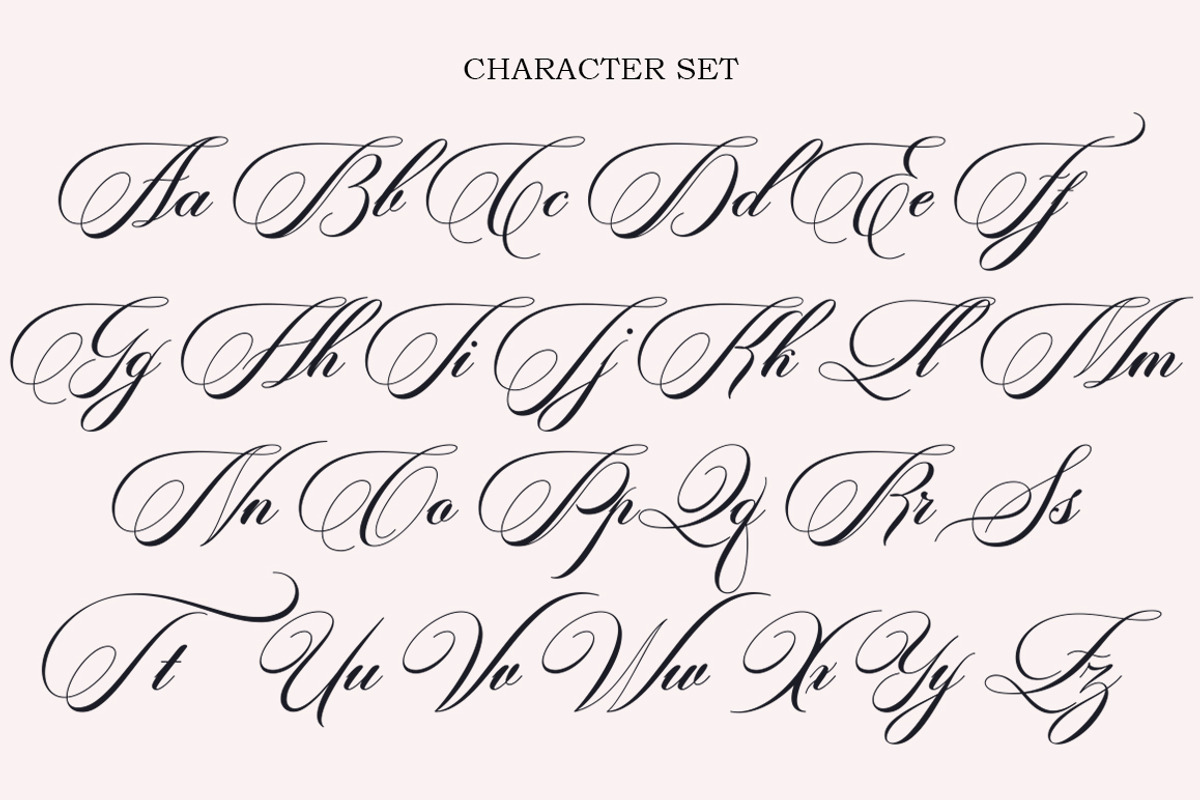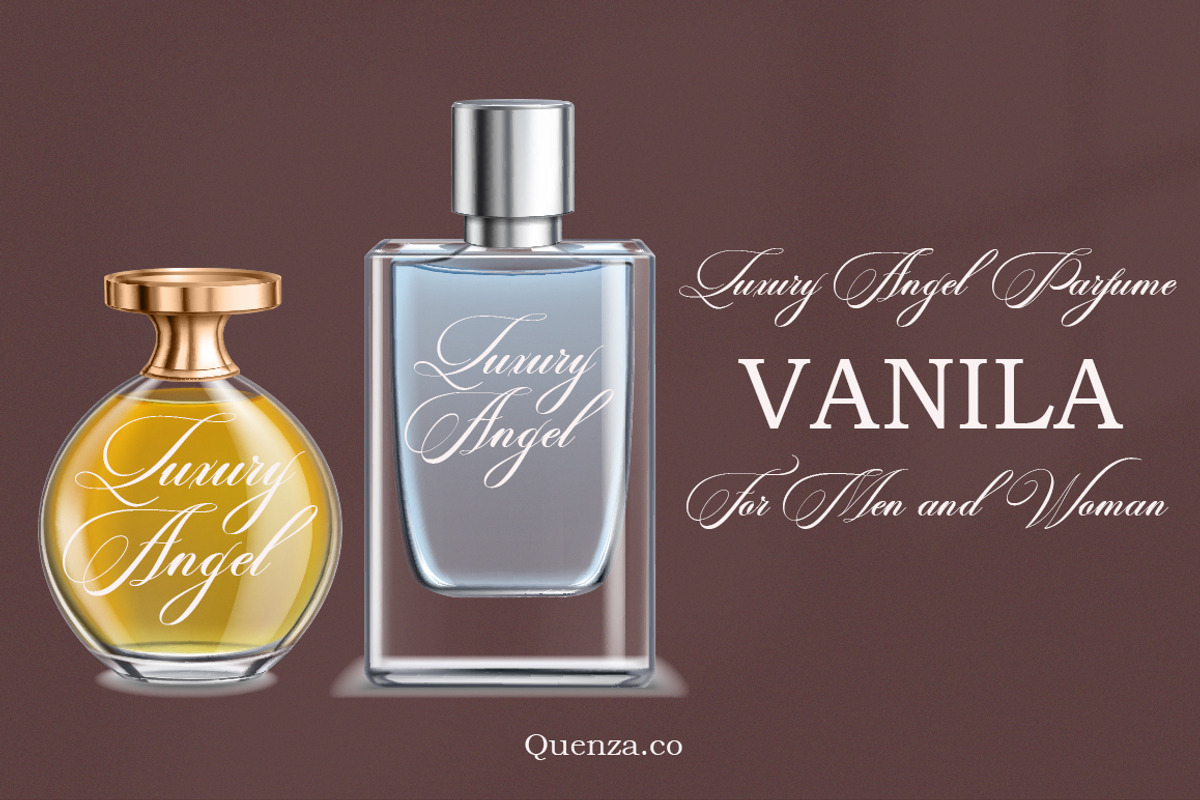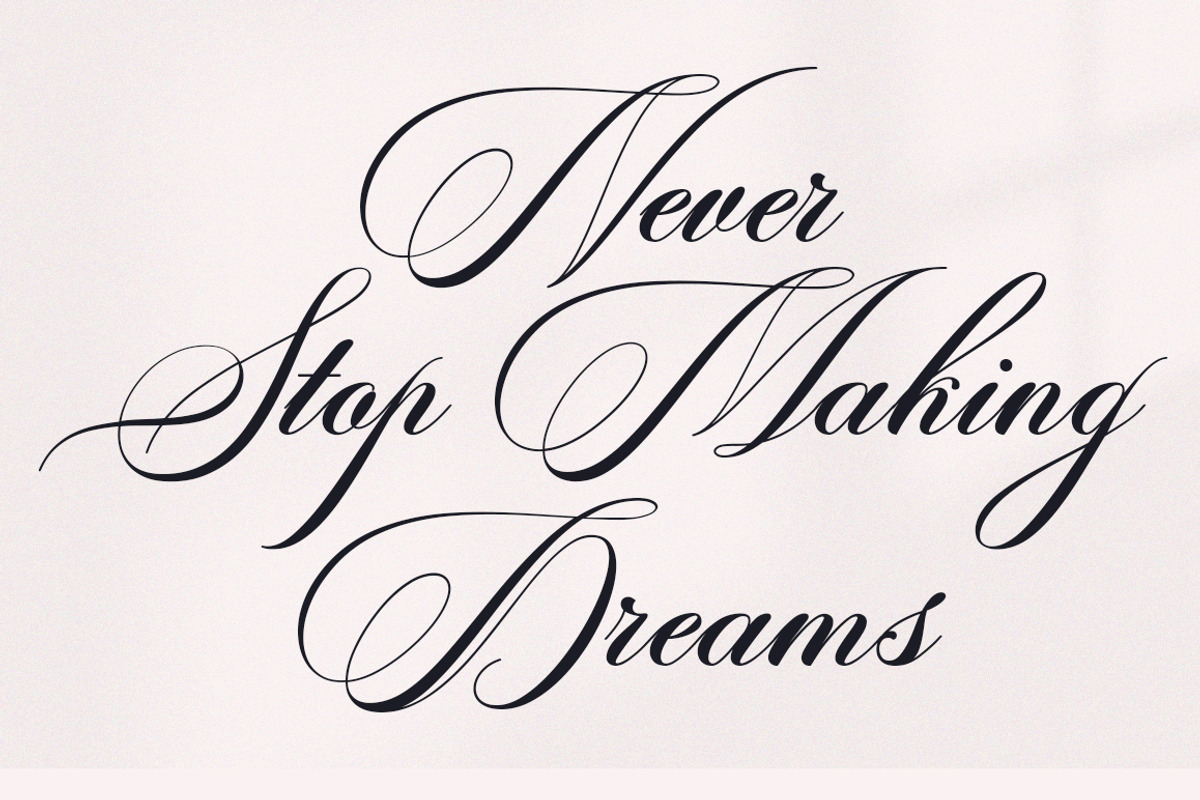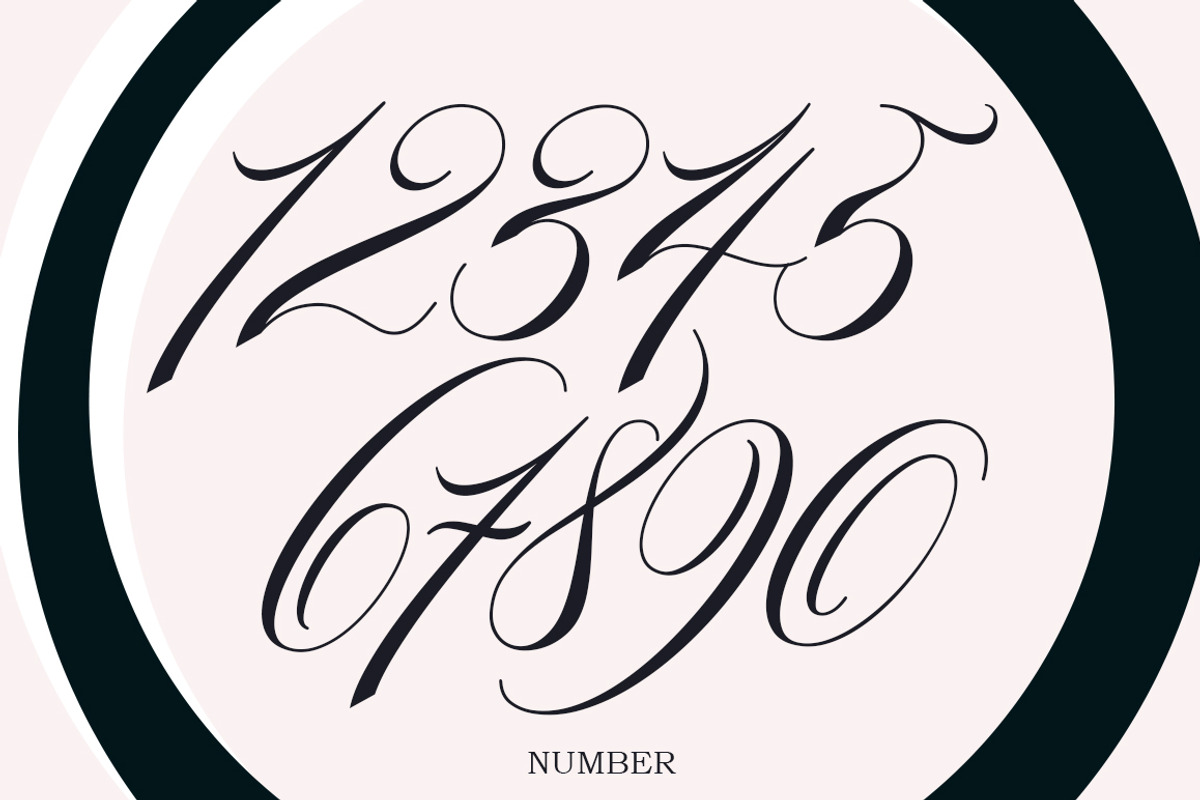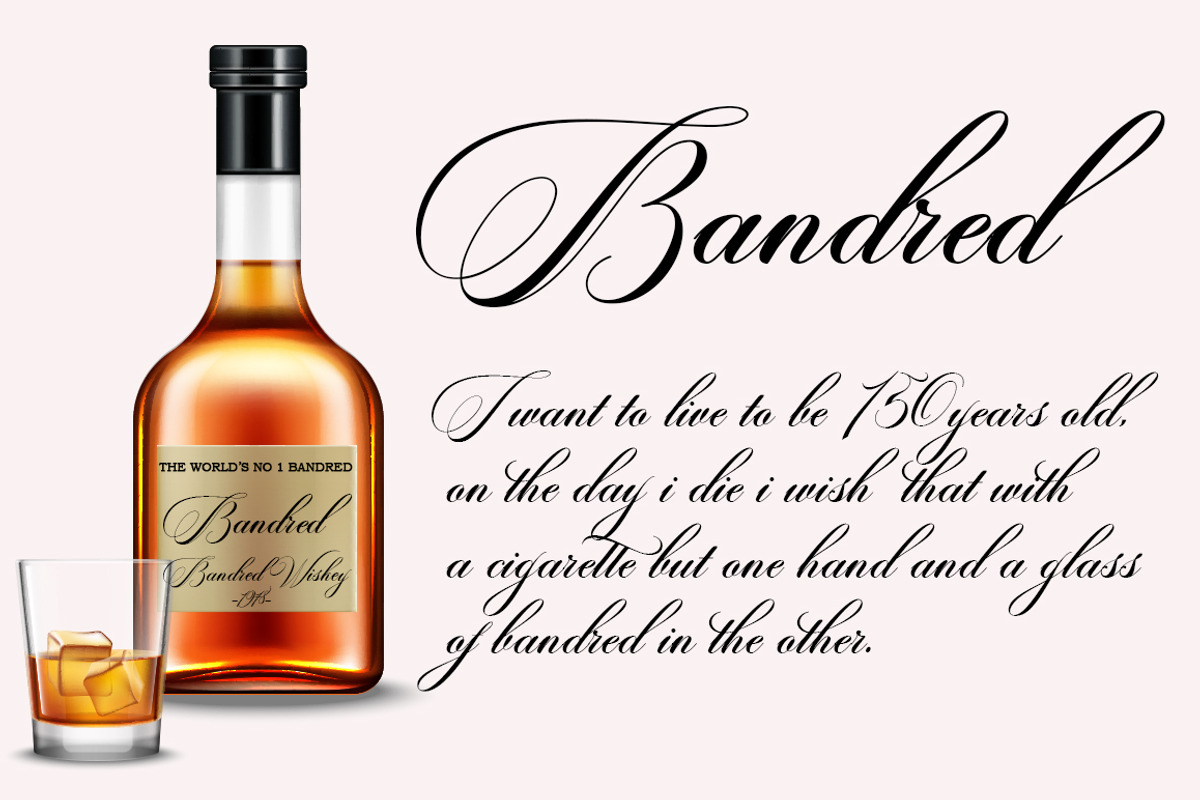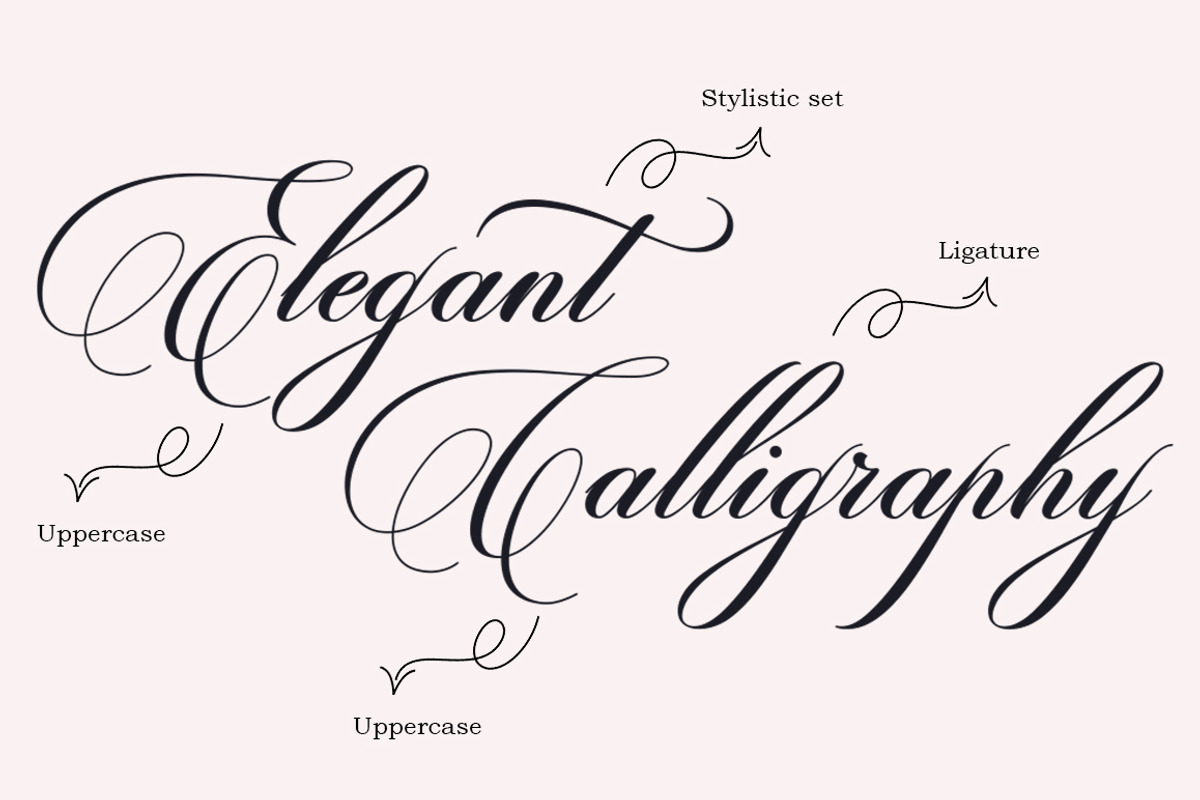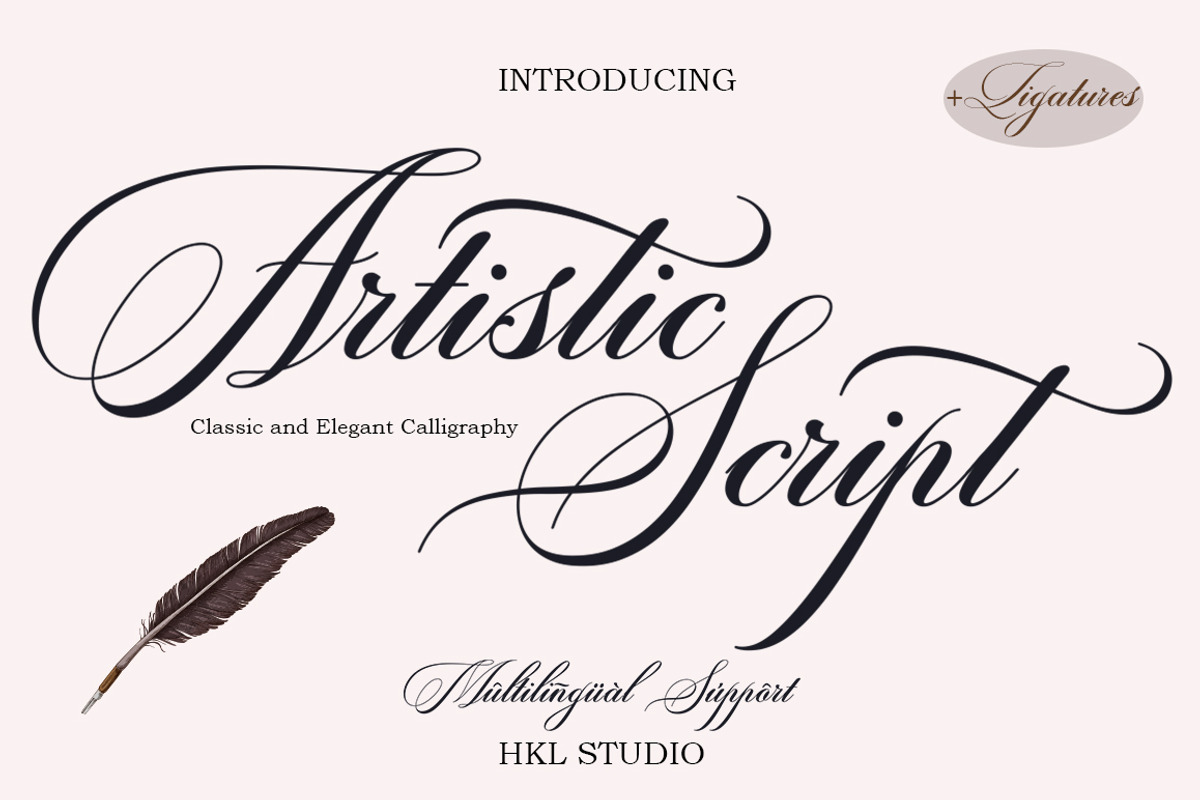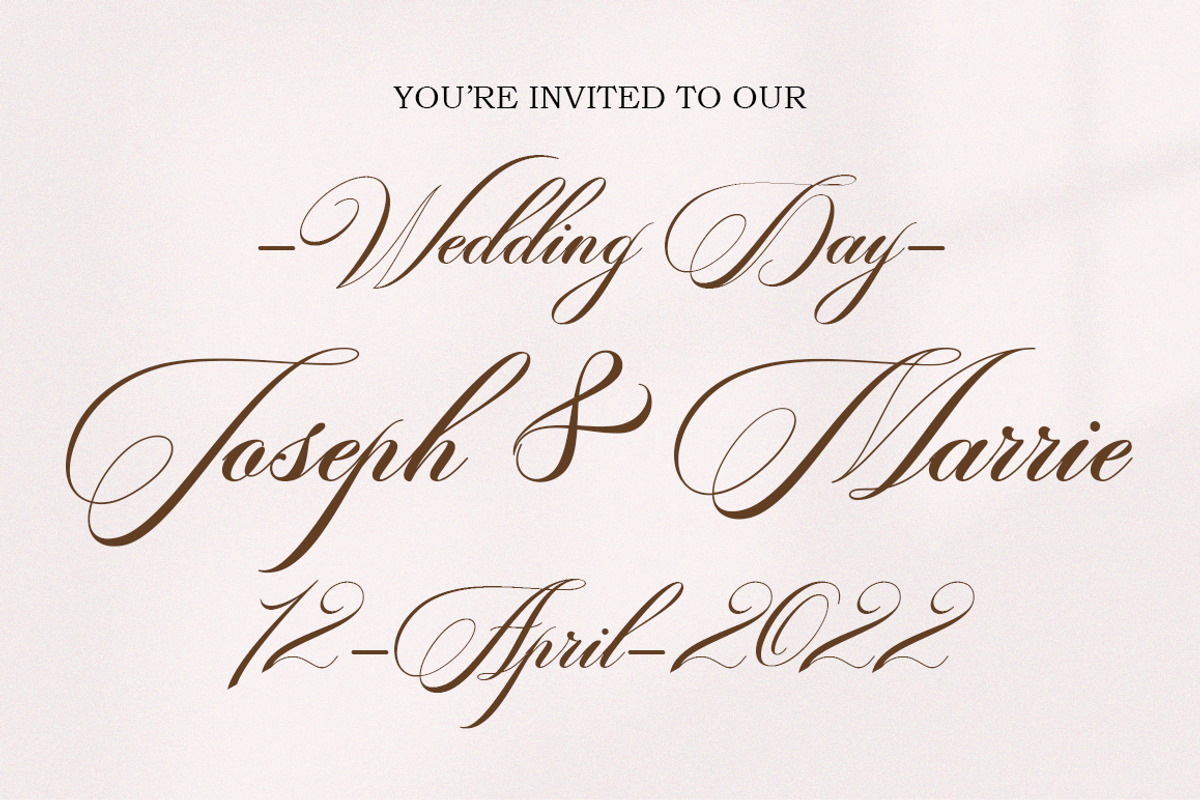
Artistic Script
Artistic Script Pro is a calligraphy script font that comes with exquisite change characters, a kind of classic decorative copper script with a modern twist, designed with great detail to bring out stylish elegance.
Artistic Script Pro appeals as a typeface that is smooth, clean, feminine, sensual, glamorous, simple and very easy to read, luxurious typeface. The classic style is very suitable to be applied in various formal forms such as invitations, labels, restaurant menus, logos, fashion, make up, stationery, novels, magazines, books, greeting / wedding cards, packaging, labels or any kind of advertising purposes.